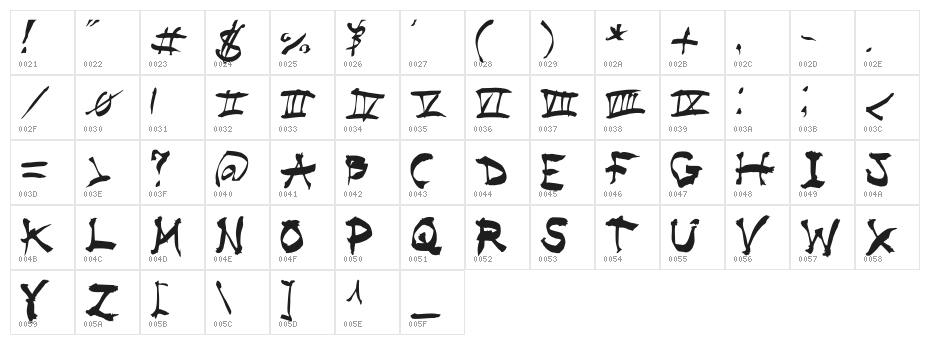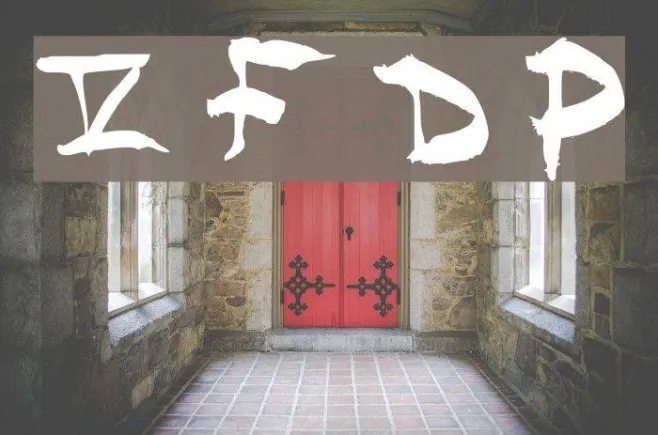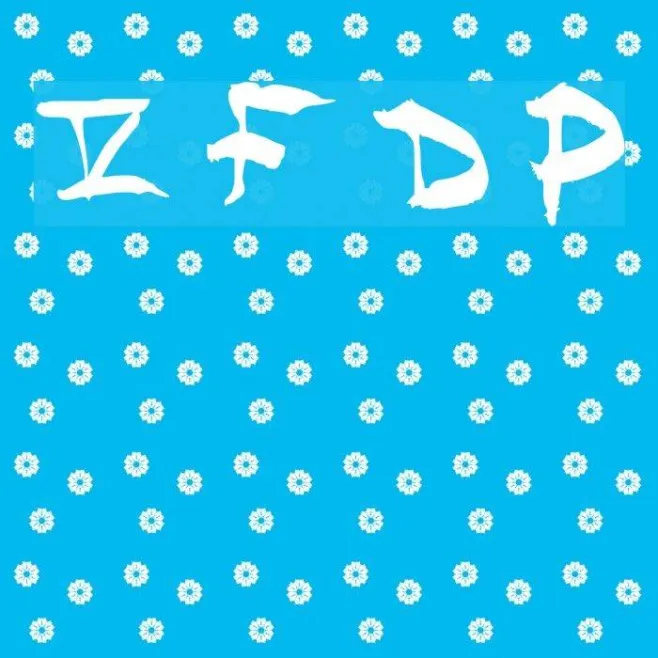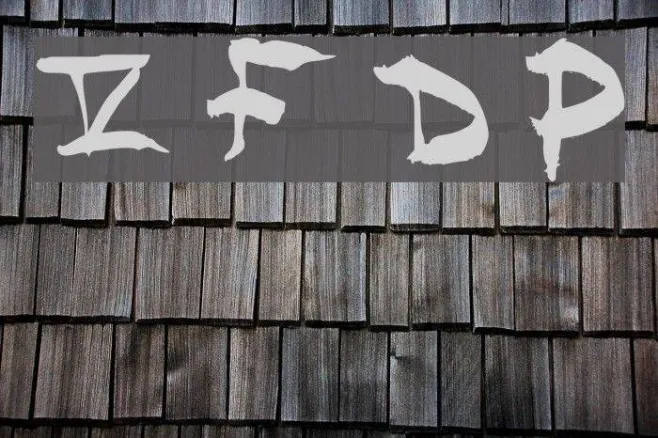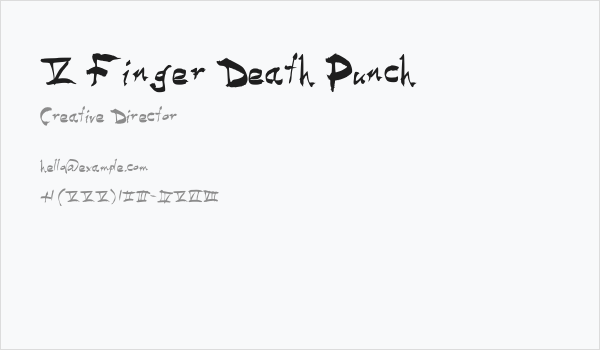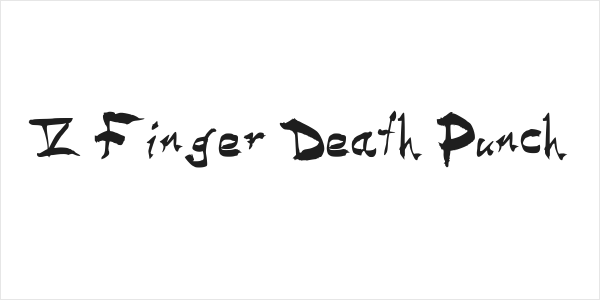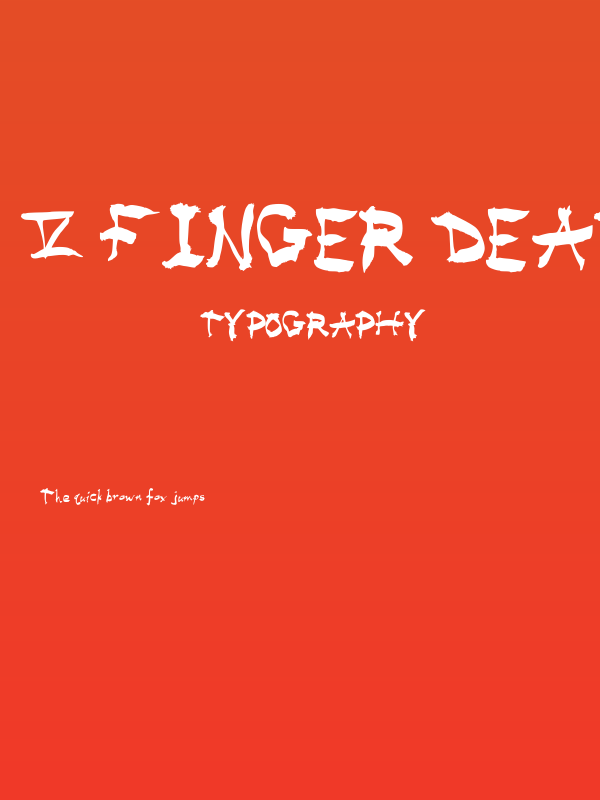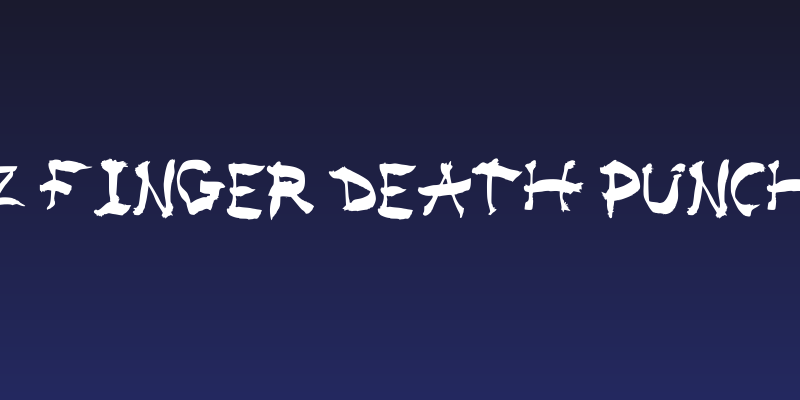
5 Finger Death Punch Font
5 Finger Death Punch Description
This font exudes a rugged and edgy aesthetic, characterized by its jagged and irregular strokes that give it a hand-drawn, rebellious feel. The uppercase and lowercase letters maintain a consistent style, with sharp angles and uneven lines that suggest a sense of movement and intensity. The numerals and special characters follow the same design principles, adding to the font's cohesive appearance. This font is ideal for projects that require a bold and impactful visual statement, such as band logos, album covers, or event posters. Its unique style captures attention and conveys a sense of raw energy and creativity.
| Overall Style | Edgy, Rebellious, Hand-drawn |
| Use Case | Logos, Posters, Album Covers |
| Proposed Projects | Ideal for band logos, album covers, event posters, and any project needing a bold, rebellious look. |